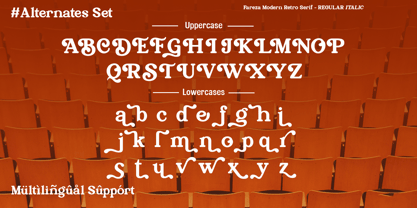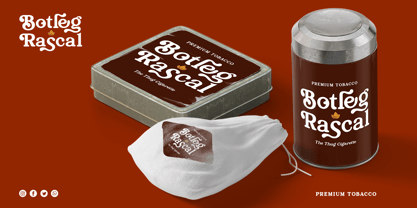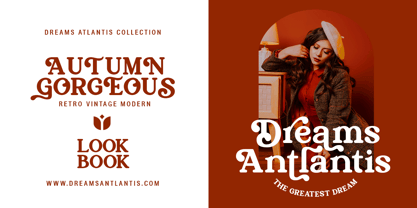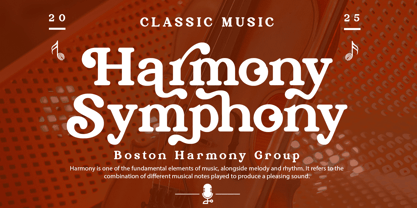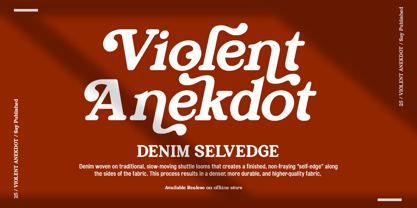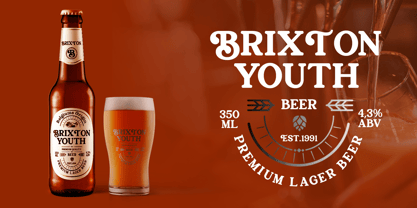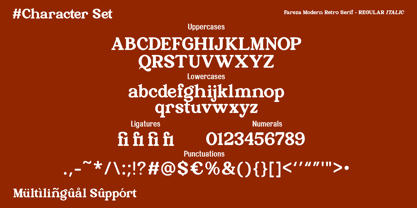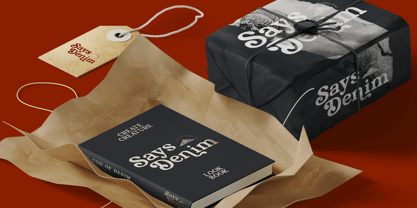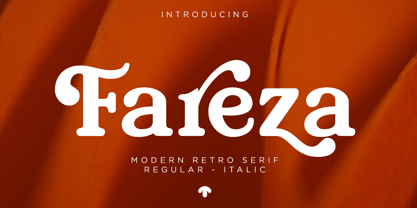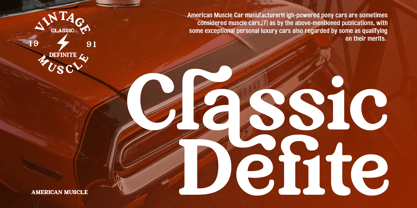
Fareza
by RagamKata
The Fareza Font Family was designed by Yogiswhara Dio Prakoso Riadi and published by RagamKata. Fareza contains 2 styles and family package options. More about this family
Fareza is a stylish modern retro serif font that combines vintage elegance with a fresh contemporary touch. With bold curves, unique serifs, and smooth letterforms, it brings a timeless charm to any design. Perfect for logos, posters, packaging, book covers, and headlines, Fareza adds a bold yet classy personality to your work. Perfect for Branding, Editorial Design, Vintage Logos, Packaging, Invitations, and more. This font comes in Regular and Italic styles, making it versatile for both classic and creative projects. Whether you’re going for a nostalgic vibe or a modern aesthetic, Fareza delivers a perfect balance of sophistication and playfulness. Thanks, Have a wonderful day Ragamakata Studio
Designers: Yogiswhara Dio Prakoso Riadi
Foundry: RagamKata